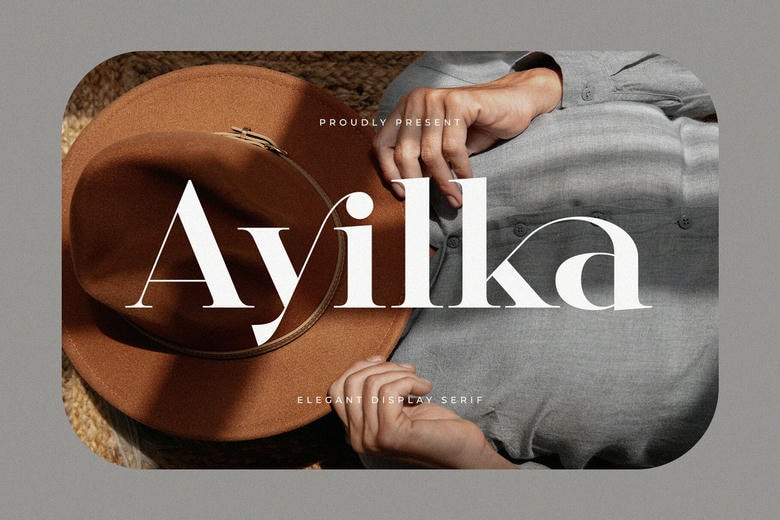
Ayilka Font
Ayilka is a contemporary and stylish serif font, which could be utilized in terms of a display of any heading, logo, brand, magazines, product packaging, and invitations. Ayilka also has a clean line and smooth curve making any project an added extra touch of elegance.
Ayilka Serif Font